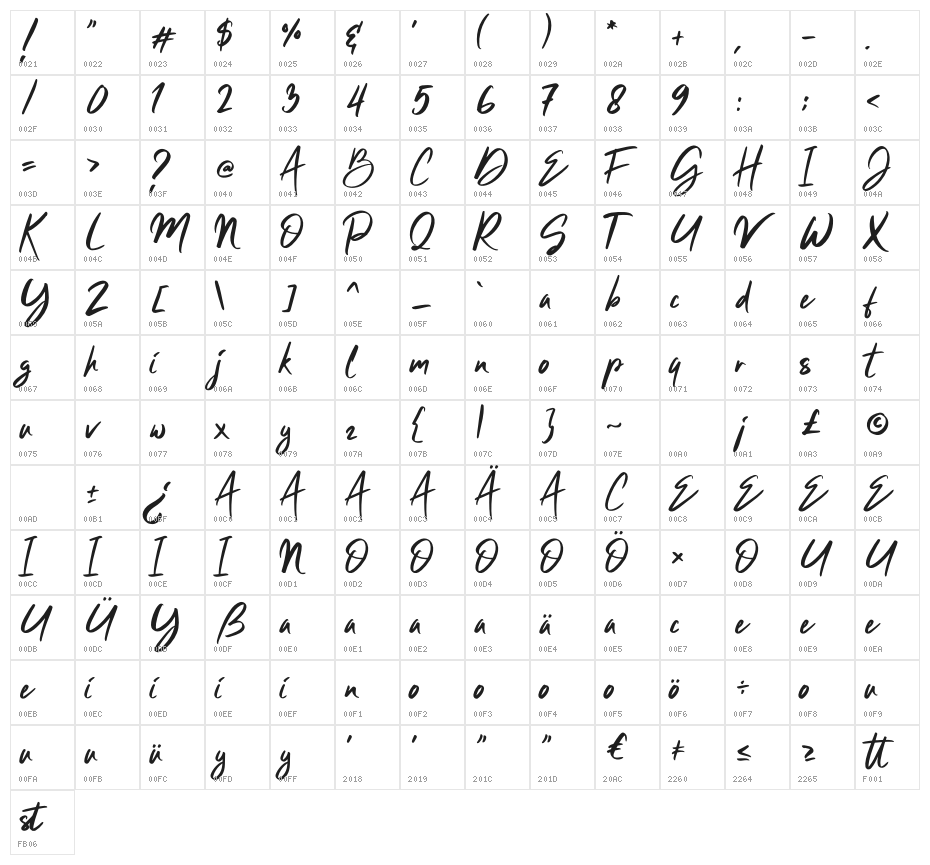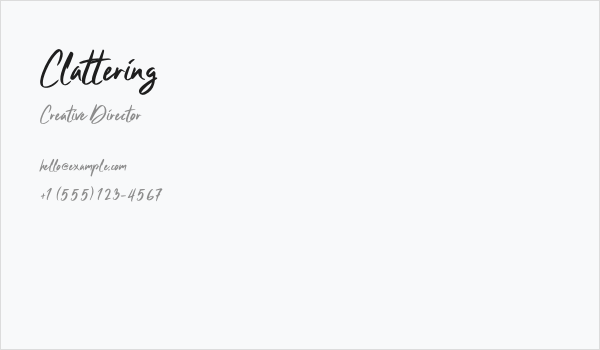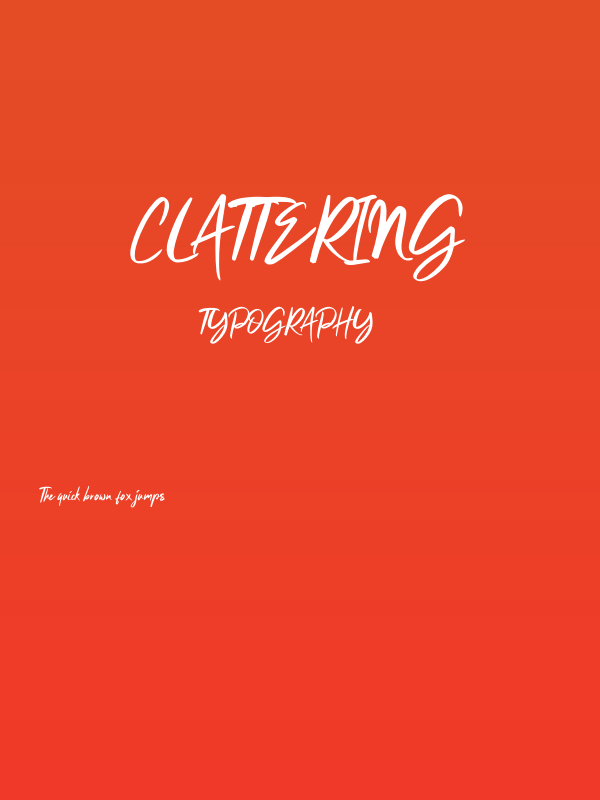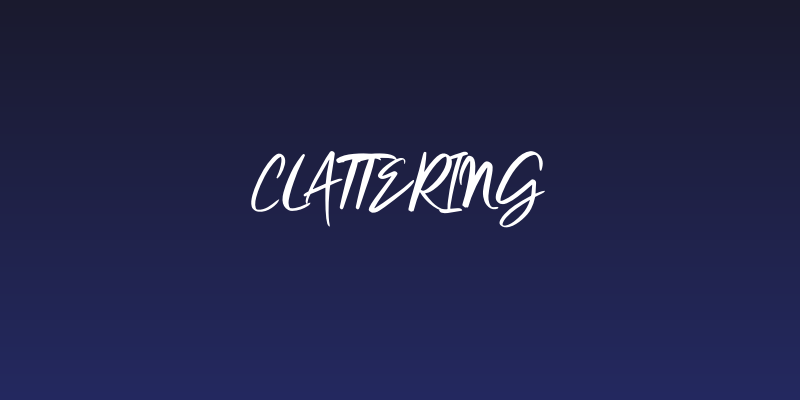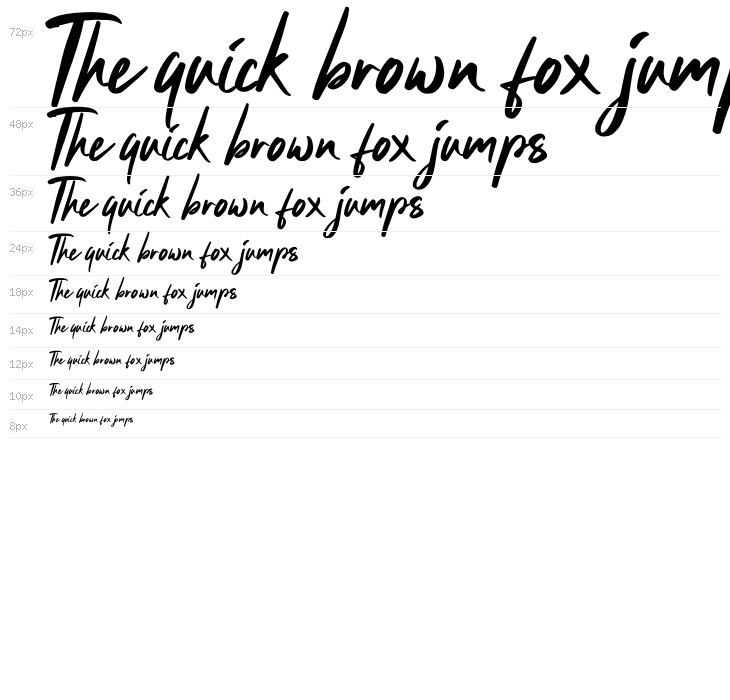
Clattering Font
Clattering Description
This font exudes a dynamic and energetic vibe with its bold, sweeping strokes and fluid, cursive style. The uppercase letters are characterized by their dramatic slants and exaggerated loops, giving them a sense of movement and flair. The lowercase letters maintain the same lively rhythm, with a slightly more compact form that balances the overall design. Numbers and special characters follow suit, featuring the same expressive curves and bold presence. The font's handwritten quality makes it feel personal and approachable, yet its boldness ensures it stands out in any context.
| Use Case | Logos, Headlines, Invitations |
| Proposed Projects | Ideal for branding projects, event invitations, social media graphics, and any design requiring a personal touch with a bold statement. |